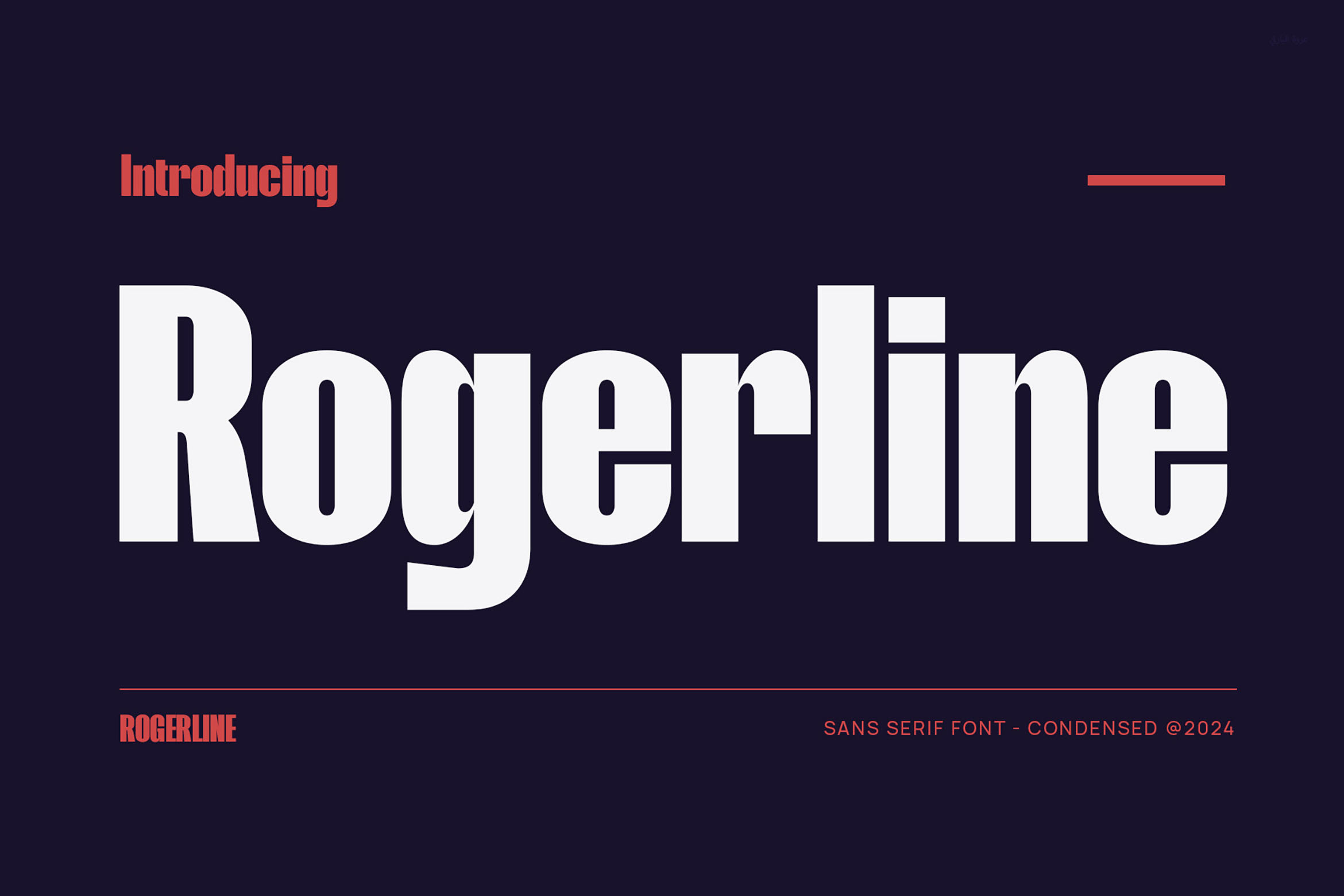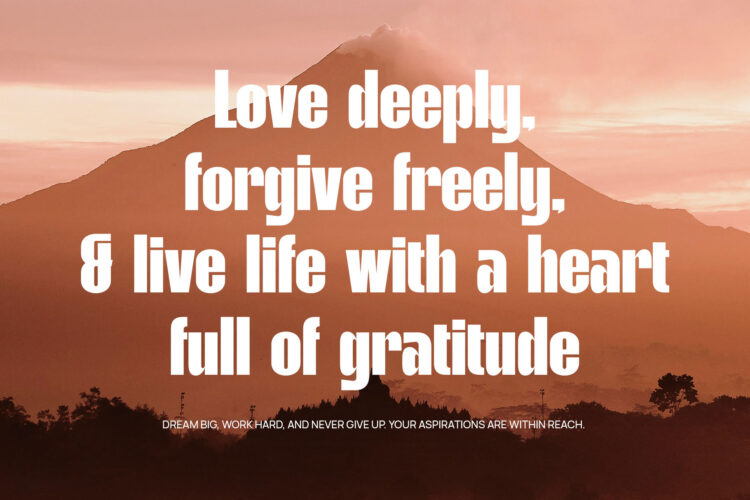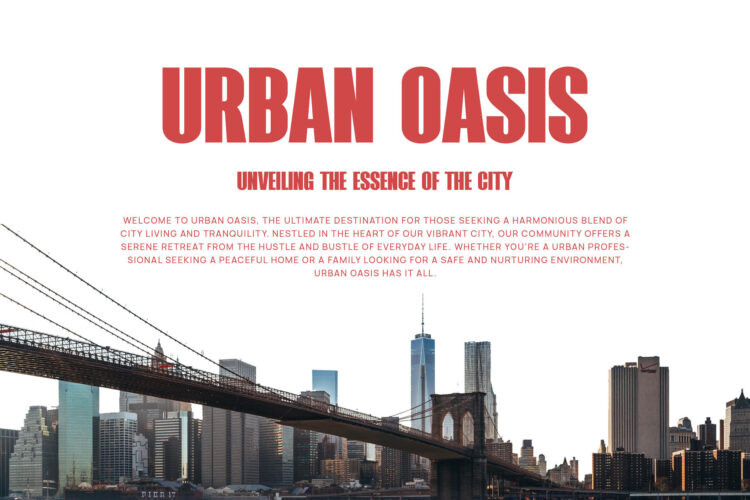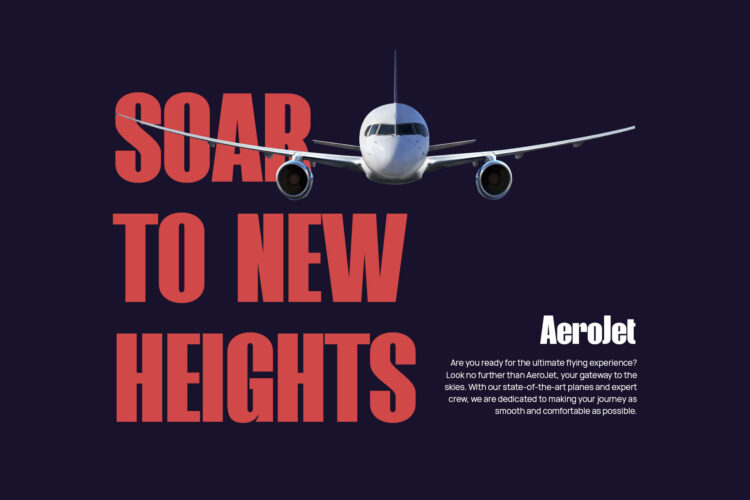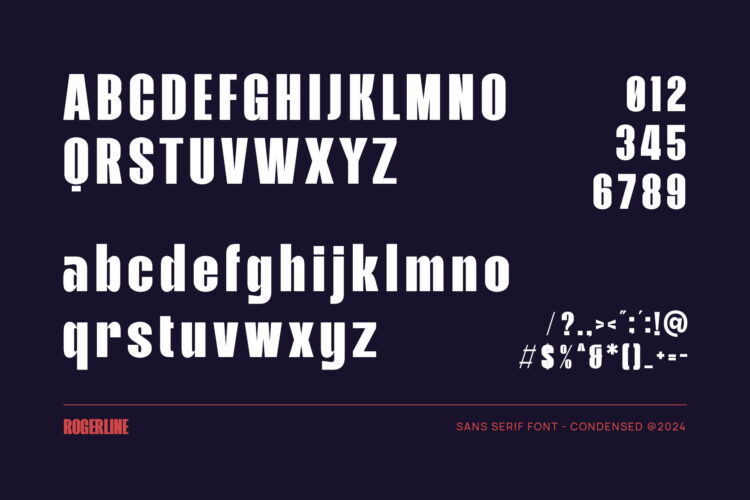
Introducing our new Rogerline, modern sans serif font with elegant style this is perfect for branding, logos, invitation, magazines, product packaging and more.
Rogerline – Modern Condensed Sans Serif